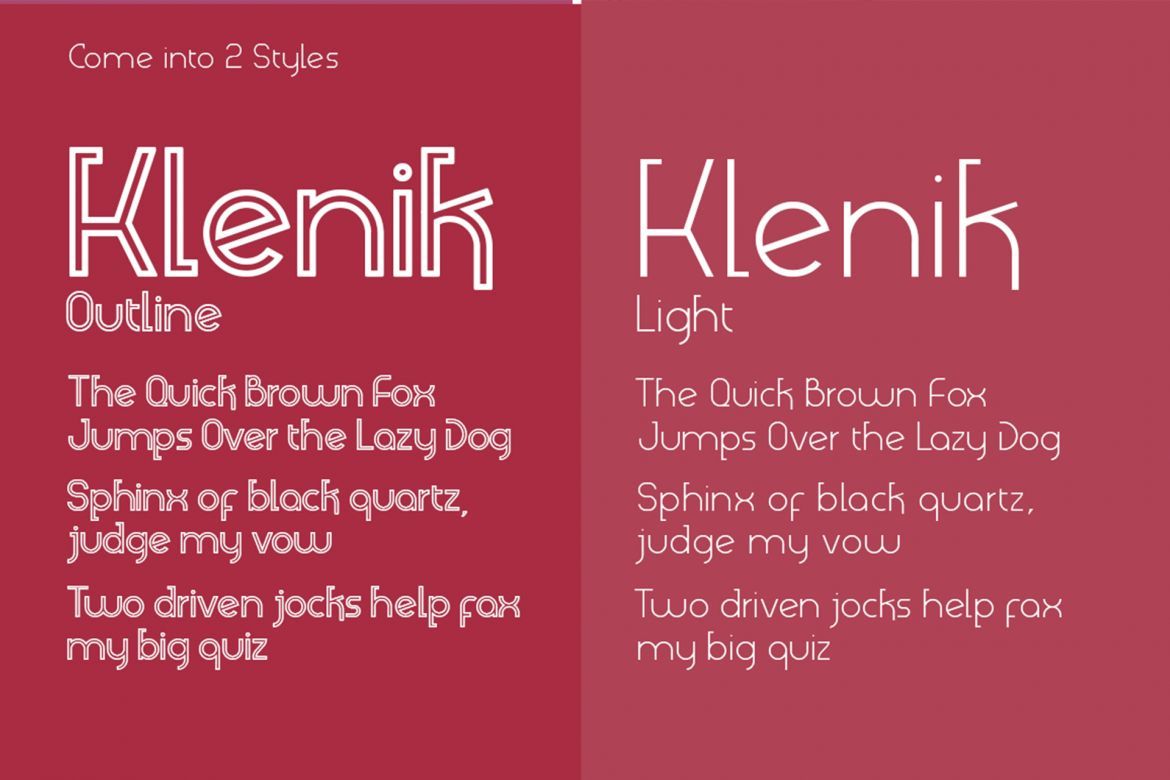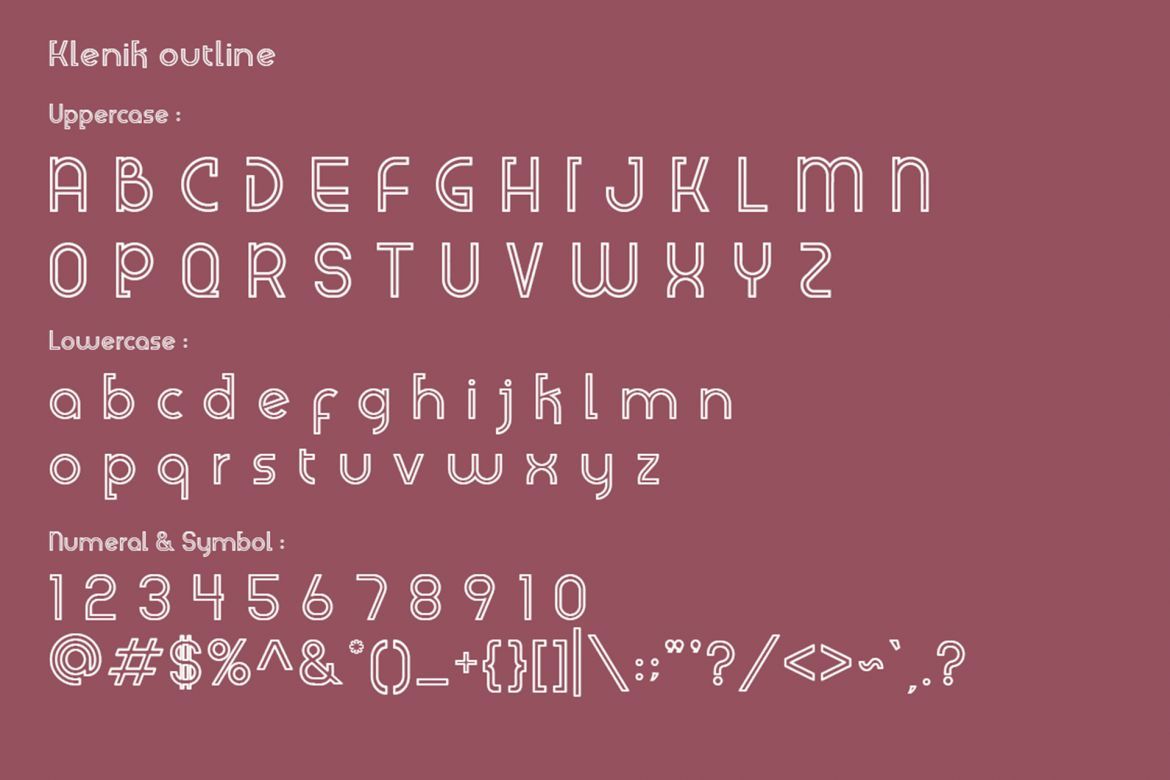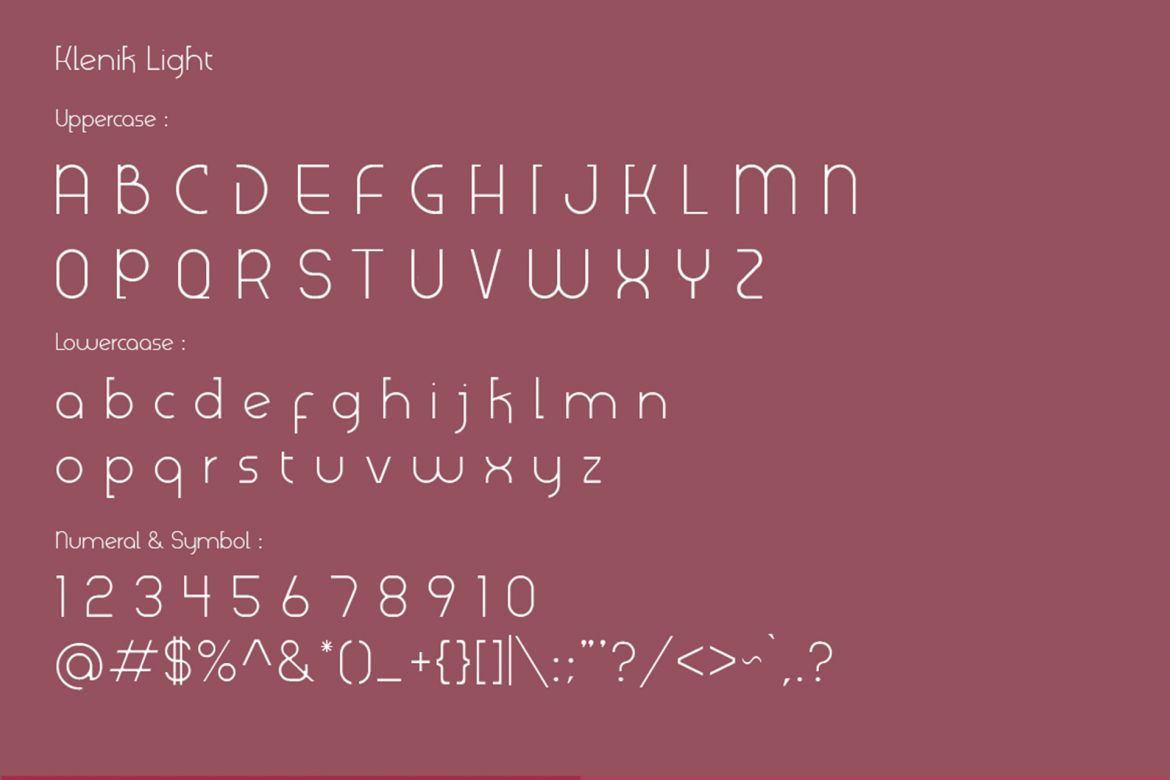
Klenik | a Slab Seriff Font
DETAILS Klenik | a Slab Serif Font is an Elegant light and outline font files. it is based on the combining a variety of styles. Suitable for Logo, greeting cards, quotes, posters, branding, name card, stationary, design title, blog header, art quote, typography
• the font is great for print template such as magazine,flyer,brochure etc
• you can create a best design with the font